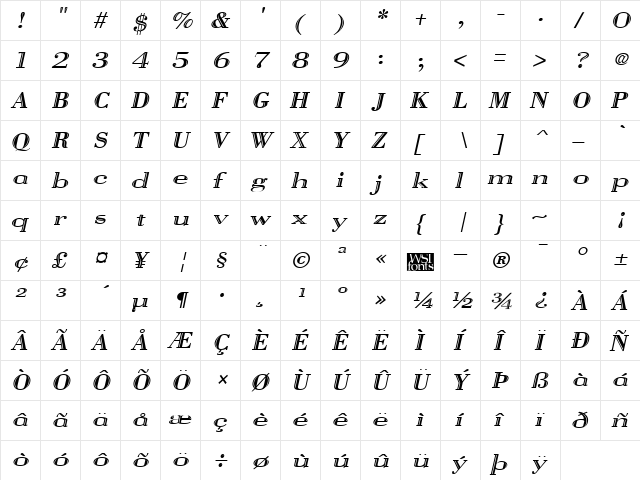
Vangard Italic
Design Context for Vangard Typeface
Vangard takes a measured approach to typography — its balanced proportions and neutral character make it a reliable workhorse for both digital and print work. The slanted form adds forward momentum and visual energy.
Pro Tip: Use Vangard for emphasis, pull quotes, and subheadings where its slanted energy can add rhythm to the layout.